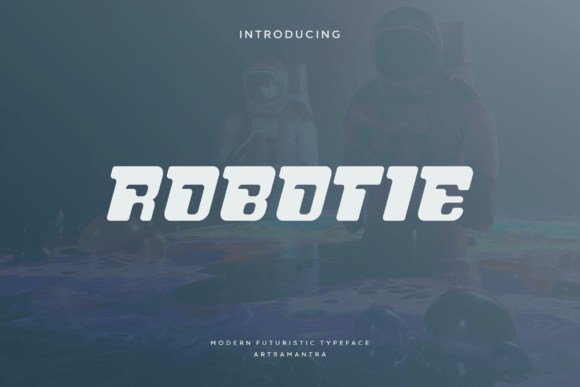
**Introducing Robotie Font: The Gateway to the Ultimate Technological Experience**
Are you ready to embark on a typographic journey that will captivate your audience and ignite their imaginations? Look no further than Robotie Font, the futuristic typeface that embodies the essence of modern technology. Inspired by the sleek lines and mesmerizing visuals of cutting-edge gadgets, sci-fi films, and captivating games, Robotie empowers you to create designs that exude dynamism and innovation.
With its minimalist style and distinctive letterforms, Robotie is the perfect font for logos, posters, packaging, presentations, and any project where you seek to convey a sense of futuristic elegance. Its elegant touch adds a touch of sophistication, ensuring that your designs not only stand out but also leave a lasting impression.
Unleash your creativity with Robotie's versatility. Whether you're crafting logos for tech startups, designing movie posters that transport viewers to otherworldly realms, or creating game interfaces that immerse players in virtual adventures, Robotie is the font that will elevate your projects to new heights.